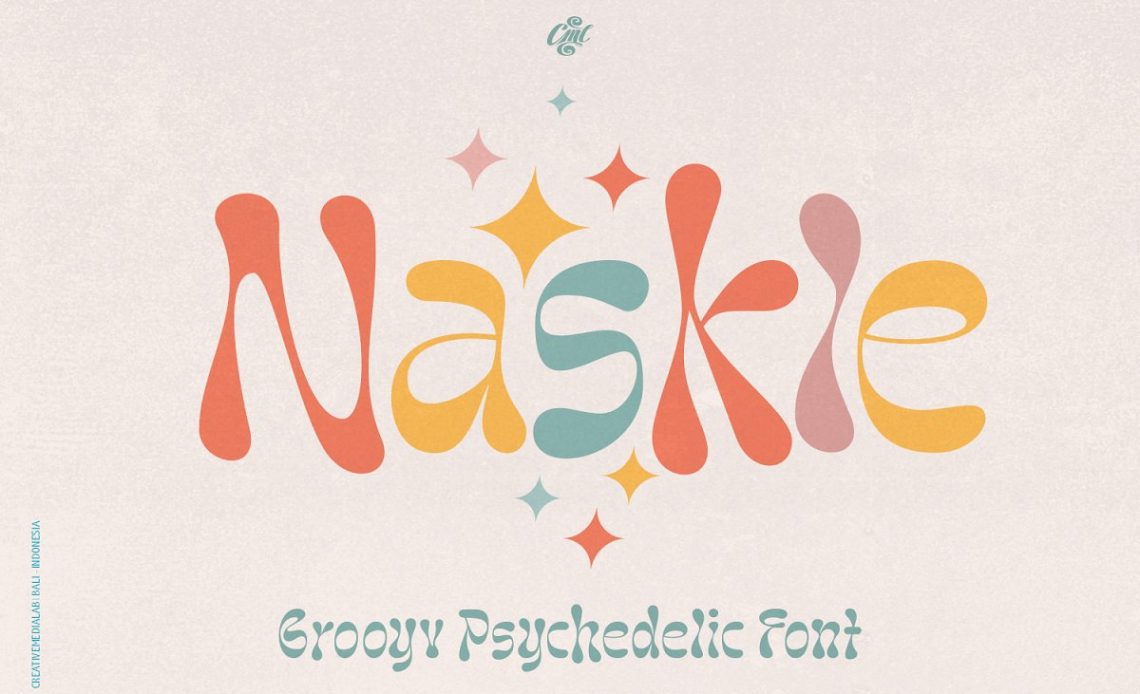
Introducing Naskle - the Groovy Psychedelic Font that will transport you straight back to the vibrant and electrifying era of the 70s! Created by the talented team at Creative Media Lab, this font is all about embracing individuality and unleashing your creative spirit.
With its unique shape letters, Naskle is the perfect choice for anyone looking to add a touch of retro charm to their projects. Whether you're designing an eye-catching illustration, creating funky posters, or even jazzing up your stickers, this font will effortlessly bring your ideas to life.
One of the most exciting aspects of Naskle is its versatility when it comes to themes. If you're a fan of all things vintage, this font will transport you to a bygone era filled with groovy vibes and psychedelic wonders. It's like stepping into a time machine and experiencing the magic of the past.
But Naskle isn't just limited to vintage themes. Its captivating and playful nature makes it a great choice for various projects, allowing you to inject a dose of excitement and personality. Whether you're working on a fun graphic for a music festival or designing an album cover that oozes retro coolness, Naskle will be your ultimate tool.
This font isn't just visually appealing; it also supports a wide range of languages. From Western Europe to Central/Eastern Europe, Baltic, Turkish, and Romanian, Naskle ensures that your message can reach a global audience. It breaks down barriers and connects people through the power of design and creativity.
In a world where individuality and self-expression are highly valued, Naskle stands out as a font that celebrates uniqueness. It's a powerful tool that empowers you to make a statement, grab attention, and leave a lasting impression. Let your creativity run wild and allow Naskle to elevate your designs to new heights.